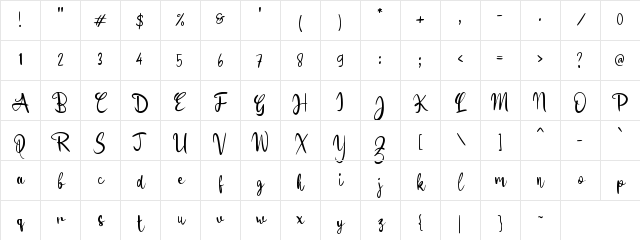
f Fellahin Regular Free Font
f Fellahin Regular
Designer: Wahyu Eka Prasetya
Design Context for f Fellahin
f Fellahin is a composed and adaptable typeface that performs quietly and consistently across a wide range of design contexts.